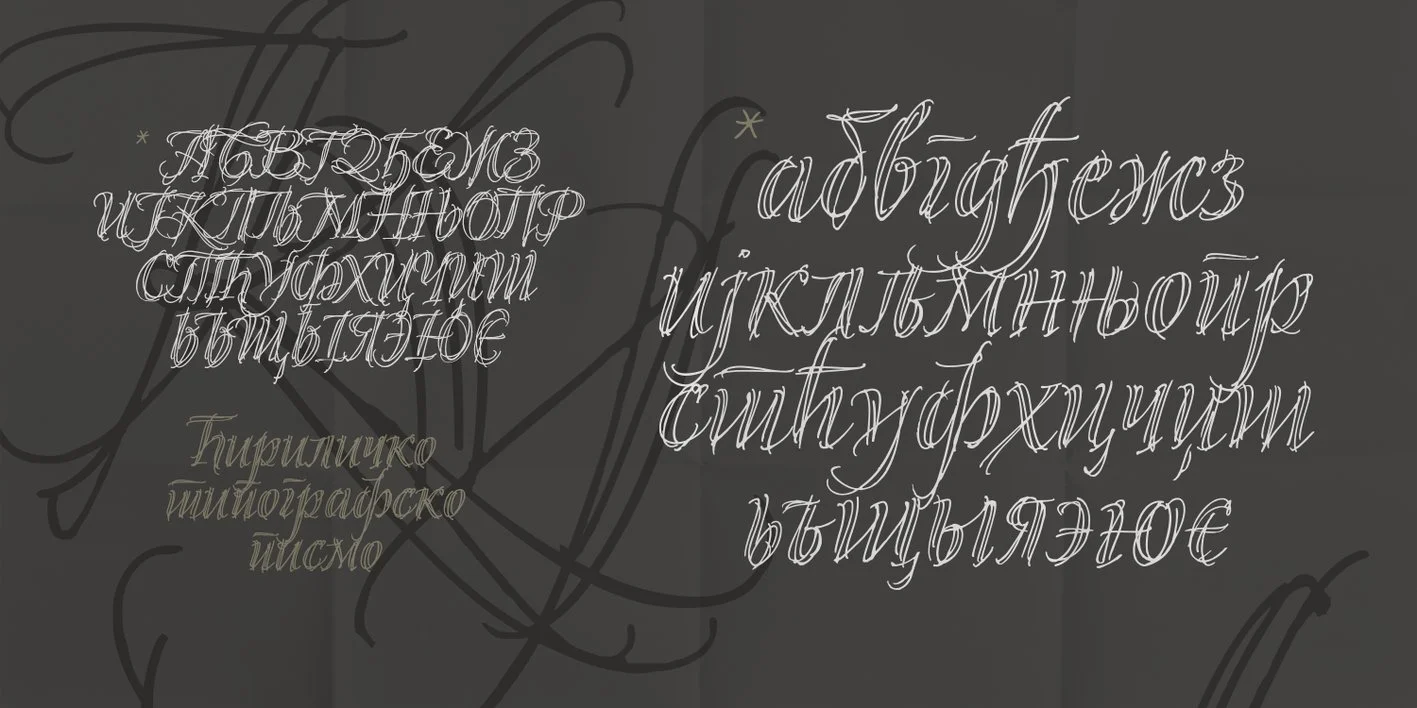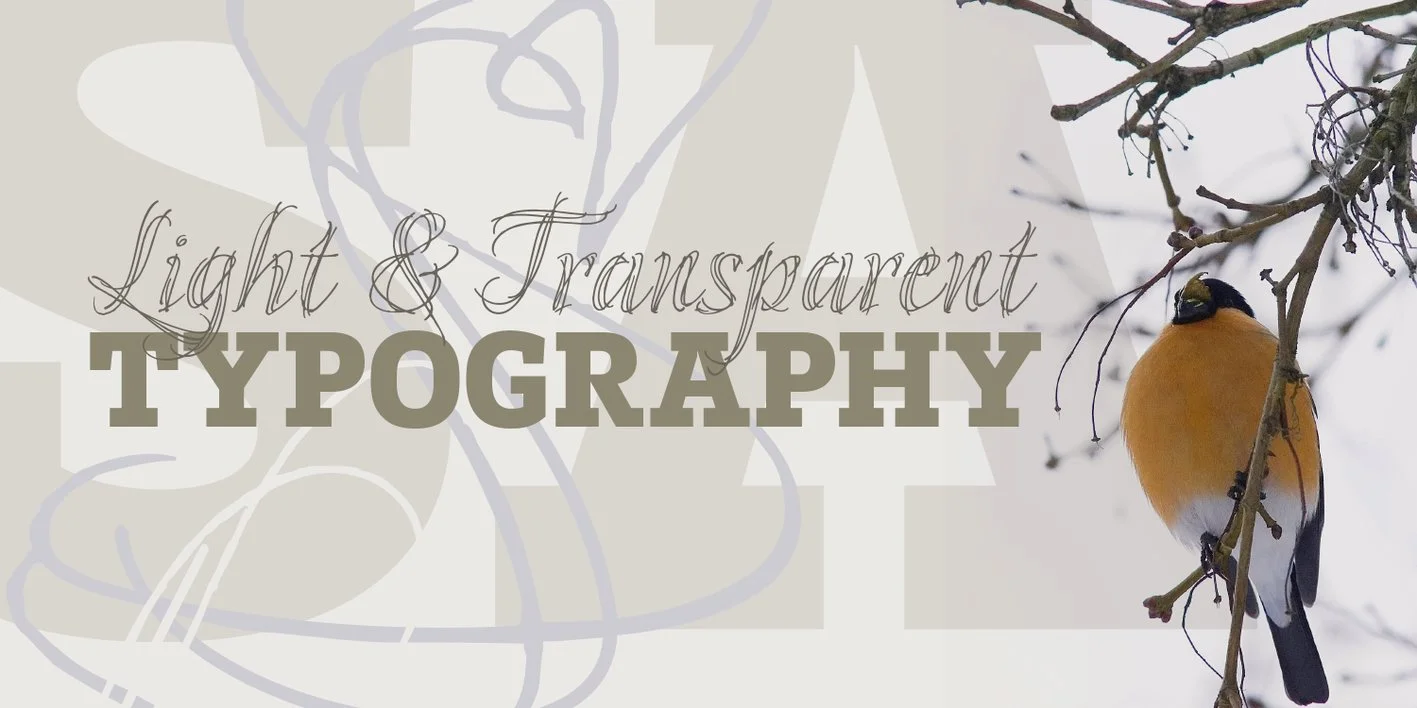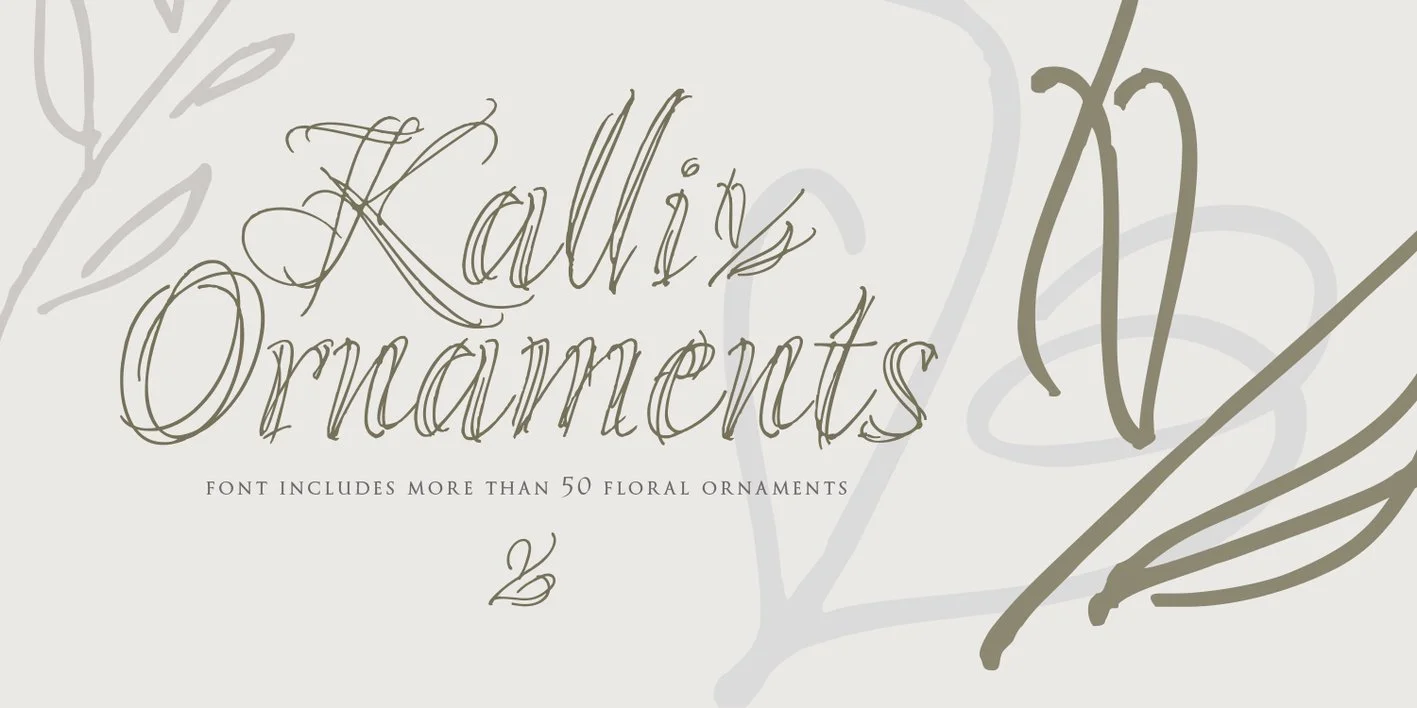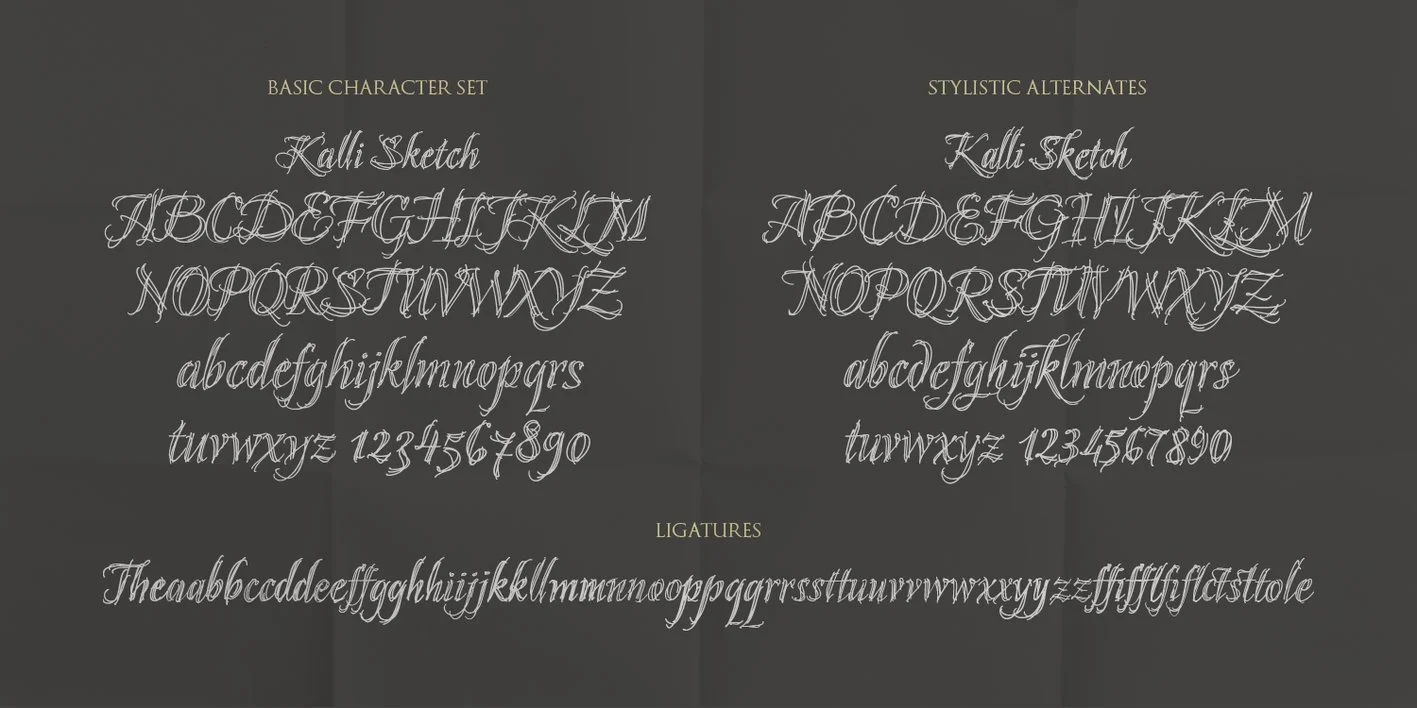
Kalli Sketch Font
A good typeface communicates tone before a single word is read. Kalli Sketch achieves this through strong typographic hierarchy support. The typeface brings a versatile sensibility to a broad range of creative disciplines, with versatility across print and screen contexts that holds up whether the work is print-first or screen-first.
In practice, Kalli Sketch proves particularly effective for packaging design, brand identity systems, logo design, web design, annual reports. Designers reaching for it find that the type decisions feel resolved rather than laboured — a useful quality when client timelines are tight.
The range of applications extends to poster creation, product labels, social media graphics, editorial layouts. That breadth is deliberate: the proportions and spacing were stress-tested across a wide range of mock briefs before the typeface was finalised.
At smaller sizes the design retains its character without becoming cluttered. This resilience across scales makes Kalli Sketch equally suitable for a business card and a billboard — a useful property when assets must scale across a campaign.
Motion designers building title sequences and lower thirds find Kalli Sketch a reliable choice for projects that demand both personality and restraint. The design avoids the self-conscious quirkiness that dates quickly, settling instead for considered distinctiveness that holds up over time.